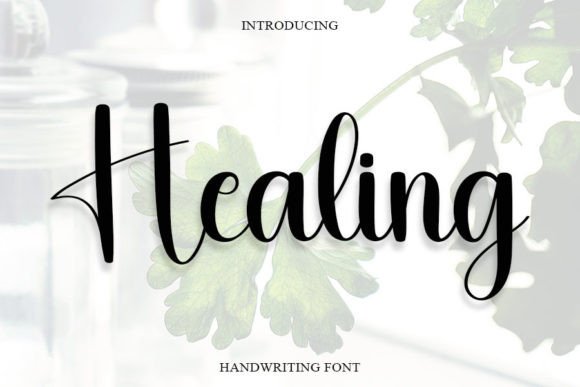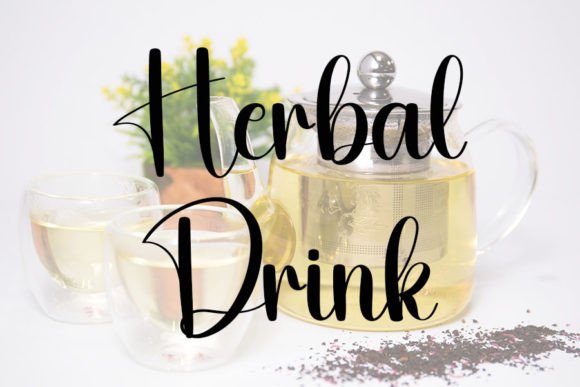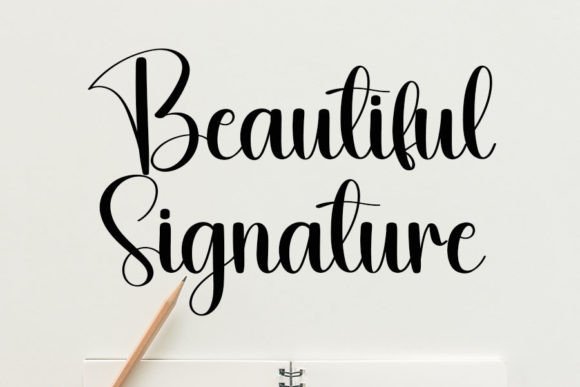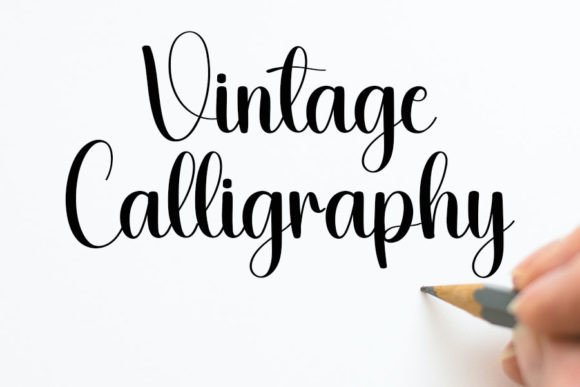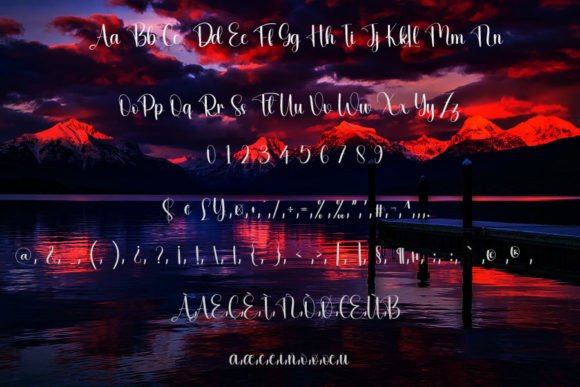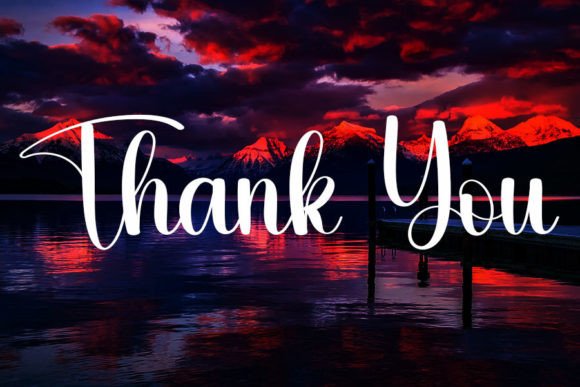
Healing Font
About Healing Font
Healing is a simple and friendly handwritten font. Whether you’re using it for crafts, digital design, presentations, or making greeting cards, this font has the potential to become your favorite go-to font, no matter the occasion!